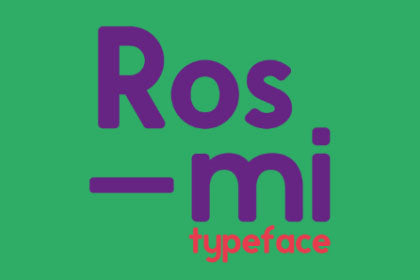
Free Rosmi Sans Typeface
Download and enjoy this free rosmi sans typeface. Cool typeface to showcase your designs in a modern way. This free typeface file was found from the amazing source called Free Design Resources. Amaze your fellow designers and create stunning designs with this cool font.